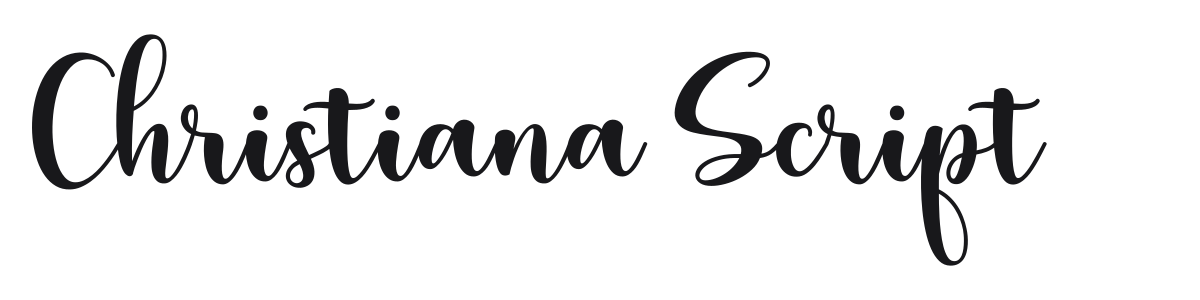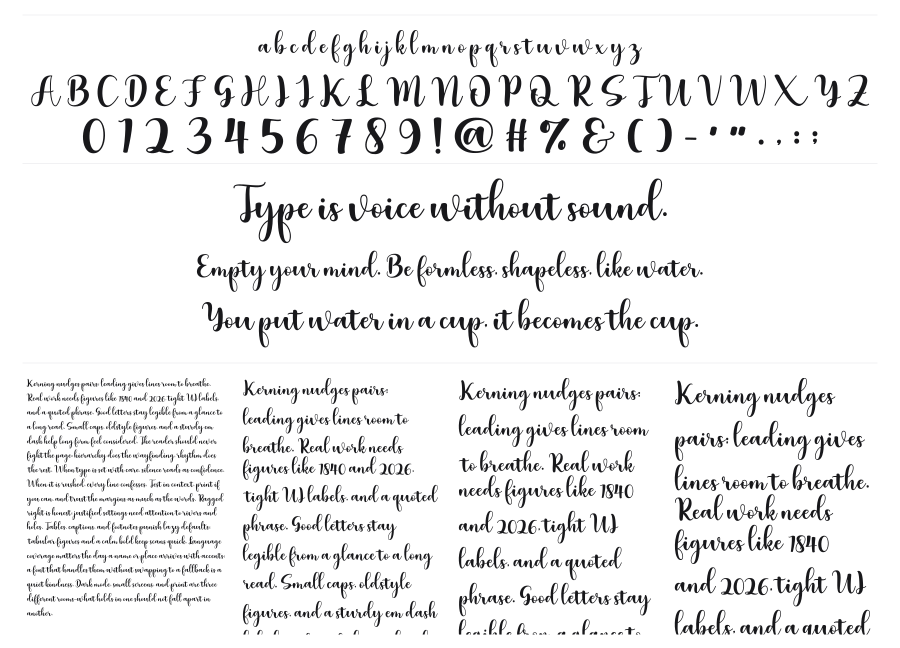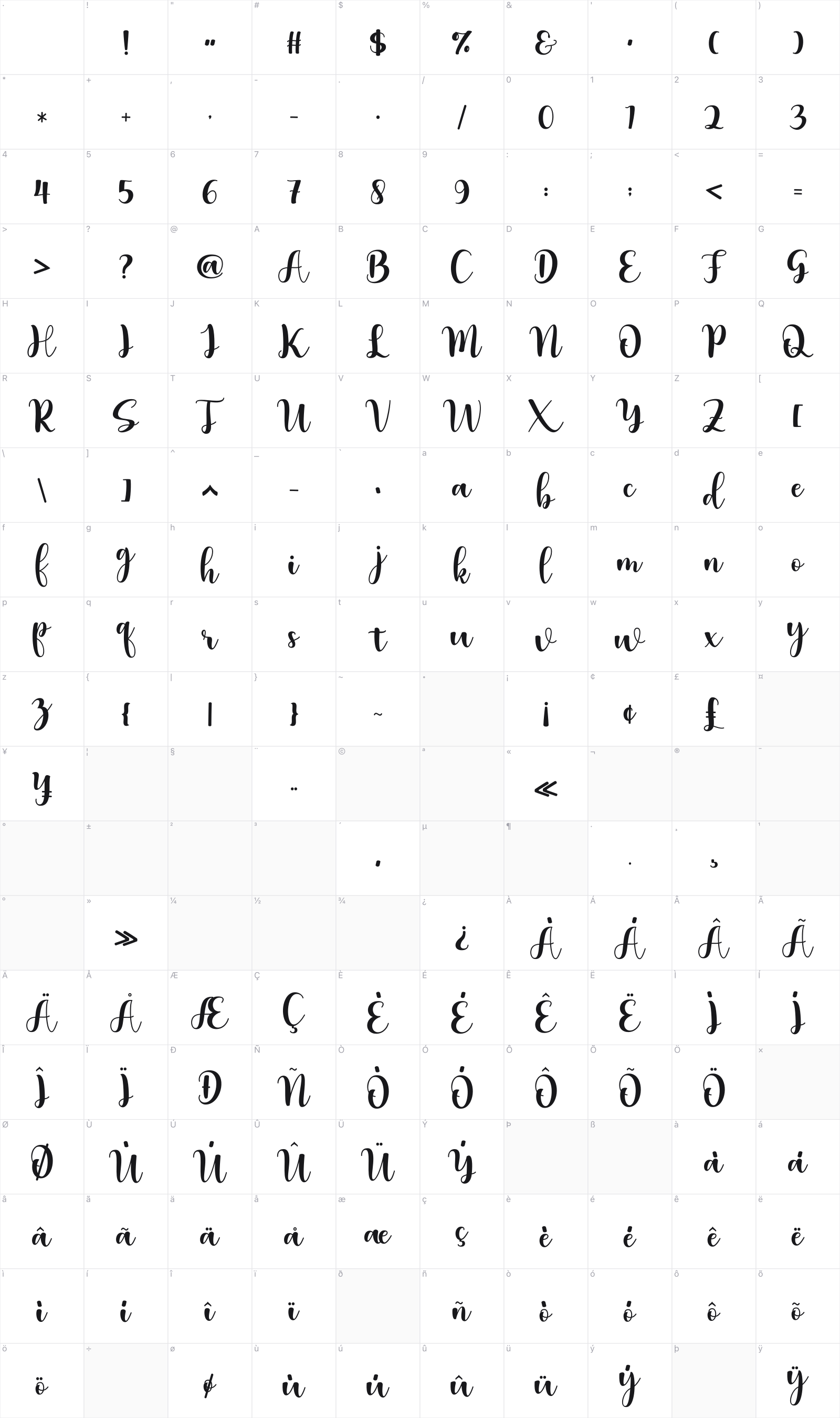
Christiana Script
Christiana Script is a lively contemporary casual script from Cut Story with a bouncy baseline and bold, looping strokes. The thick-to-thin contrast is pronounced but not severe, giving it warmth without feeling stiff. It suits wedding stationery, branding, packaging, and any project that needs a handcrafted, cheerful tone.